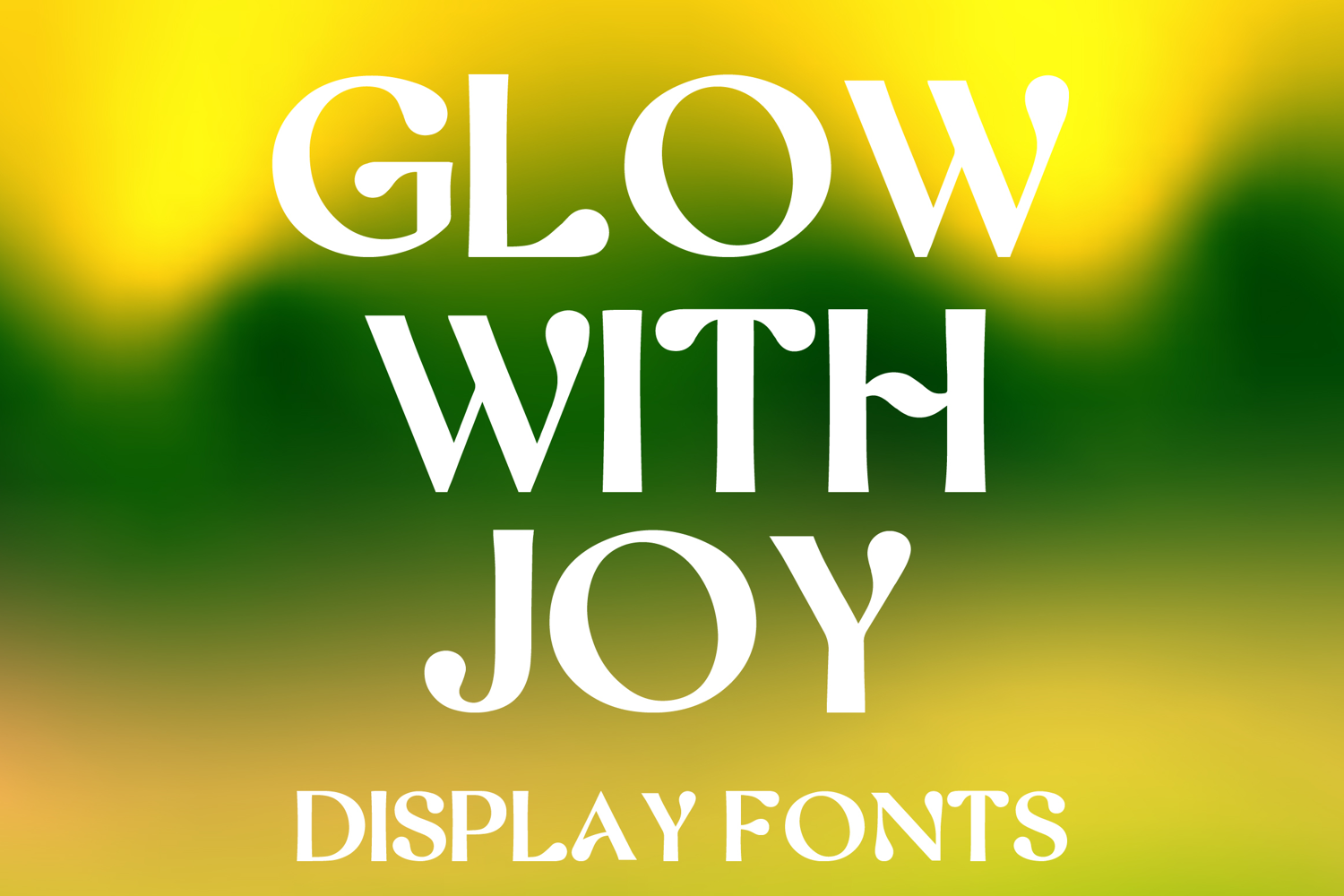
GLOW WITH JOY
GLOW WITH JOY is a charming decorative display font with a playful vintage-inspired style and elegant artistic flair. Its uppercase letterforms feature soft curves, graceful serifs, and whimsical teardrop details that create a warm, cheerful, and eye-catching look. Designed with uppercase letters A–Z and numbers 0–9, GLOW WITH JOY is perfect for branding, posters, packaging, invitations, logos, social media graphics, and creative projects that need a joyful and memorable statement.